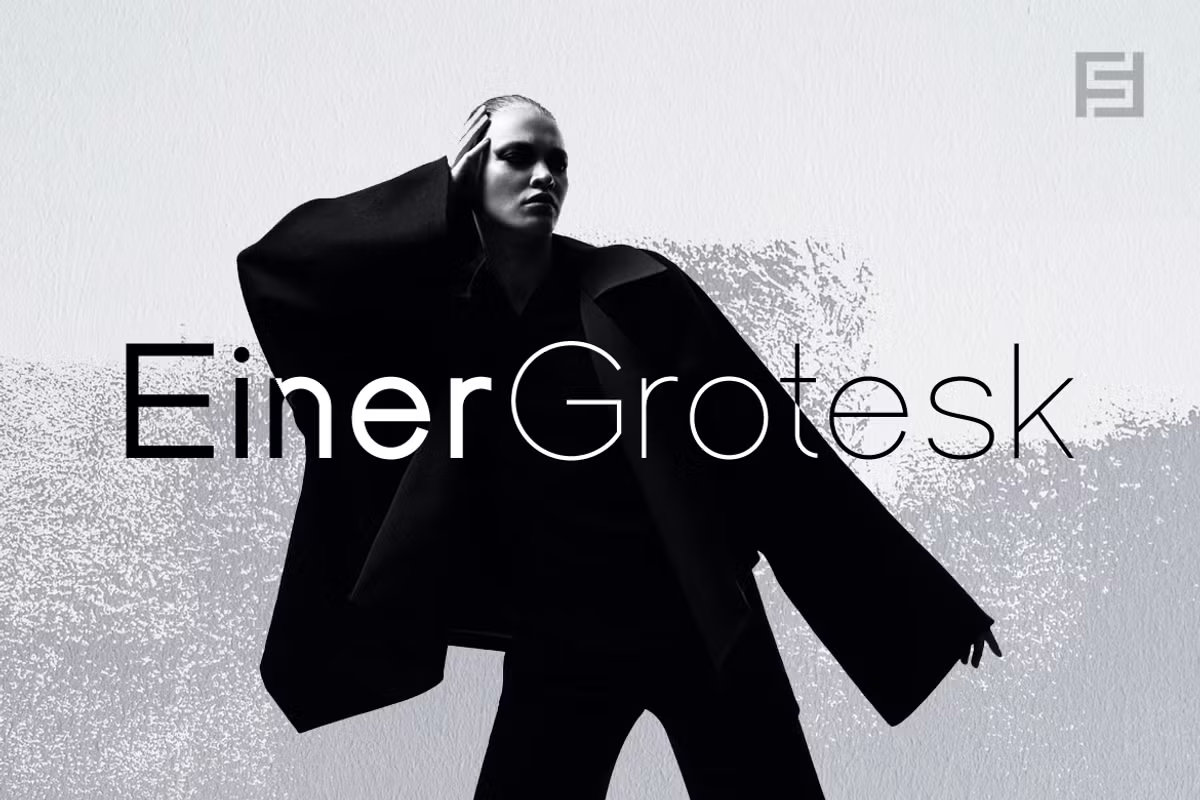
EINER GROTESK - Modern Font Family Free Download
Please note, to use this font for commercial purposes, you must purchase the full version. EINER GROTESK is a sleek and contemporary font family designed with modern typography in mind. Offering a variety of weights and styles, this versatile font family is perfect for logos, branding, websites, editorial designs, and more. Whether you're designing for a corporate brand, a creative project, or a stylish marketing campaign, EINER GROTESK adds a polished and professional touch to your work. Test it out and enjoy free download access for personal use. Experience the clean, modern style of EINER GROTESK - Modern Font Family Free Download before purchasing the commercial license. Add a modern, geometric flair to your designs with EINER GROTESK.